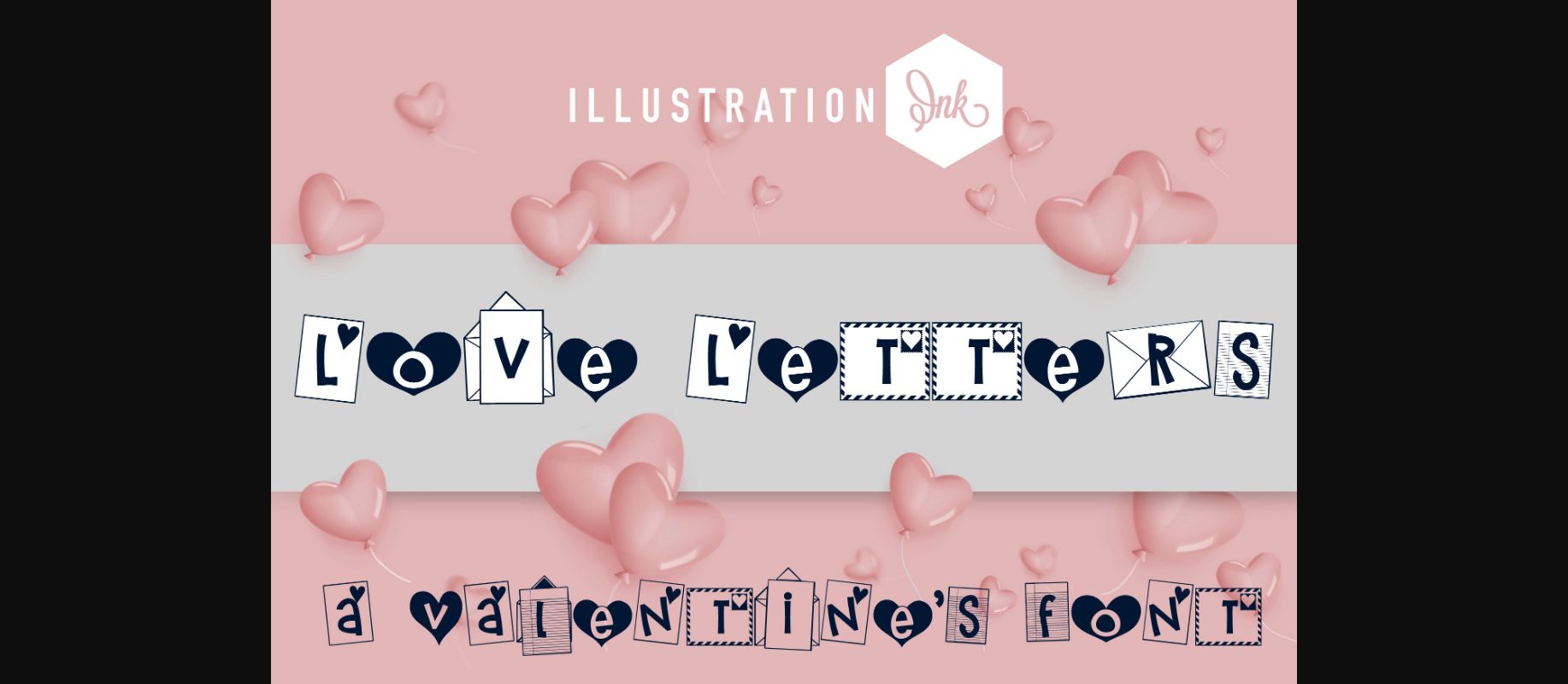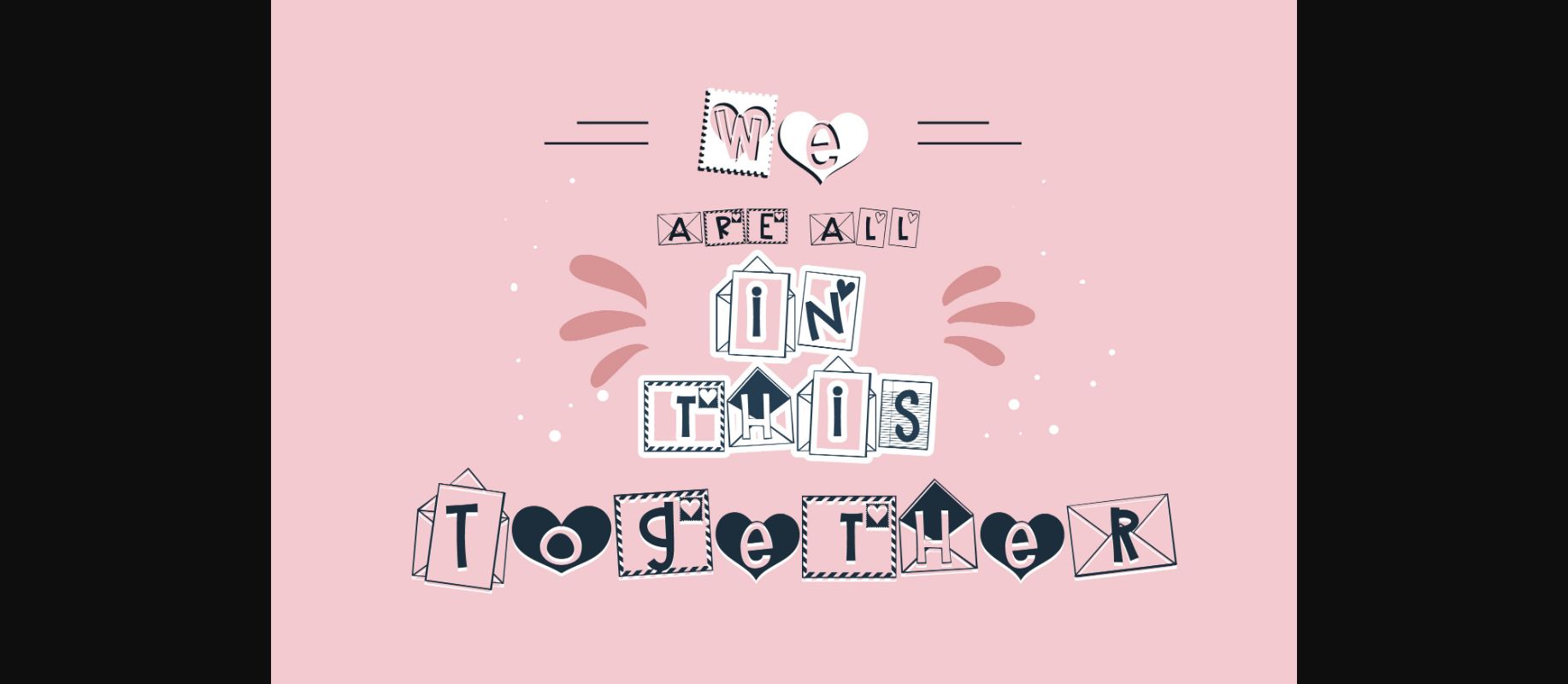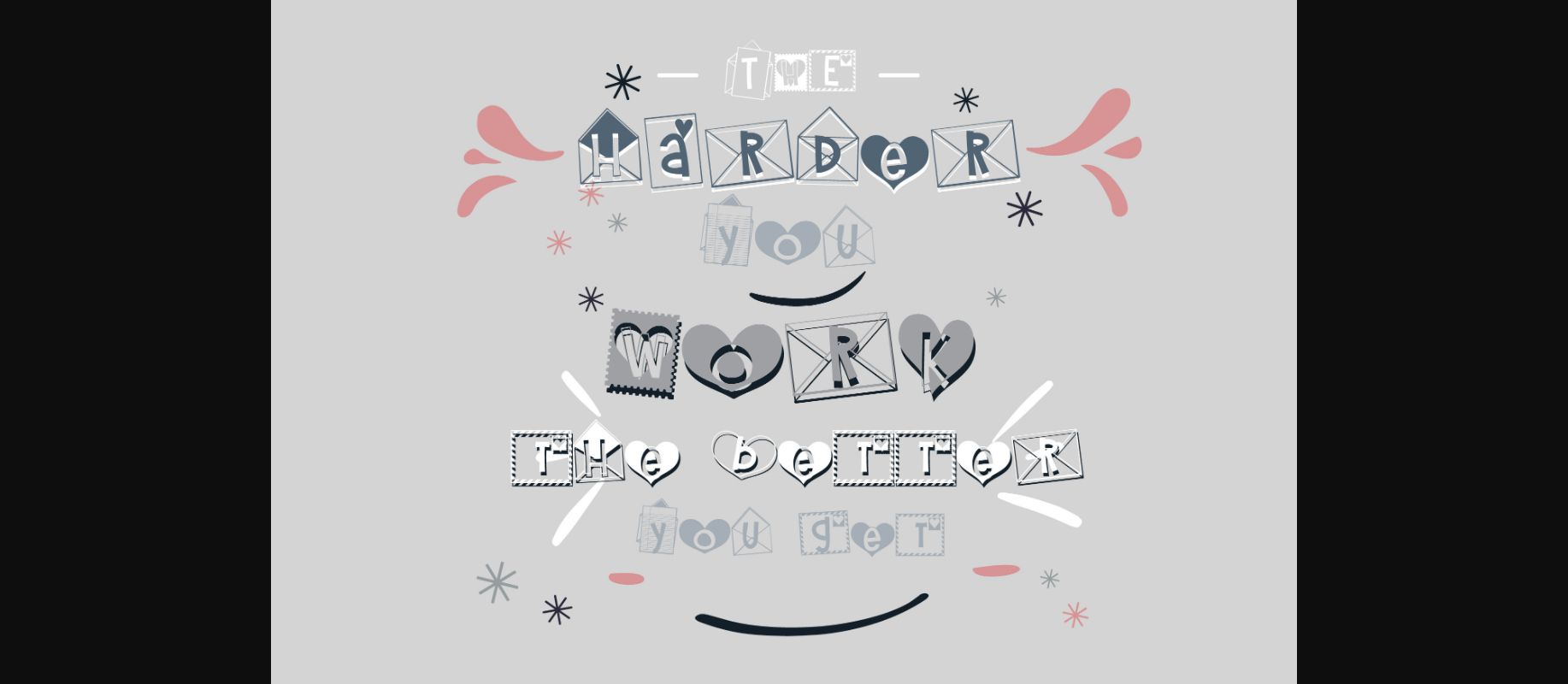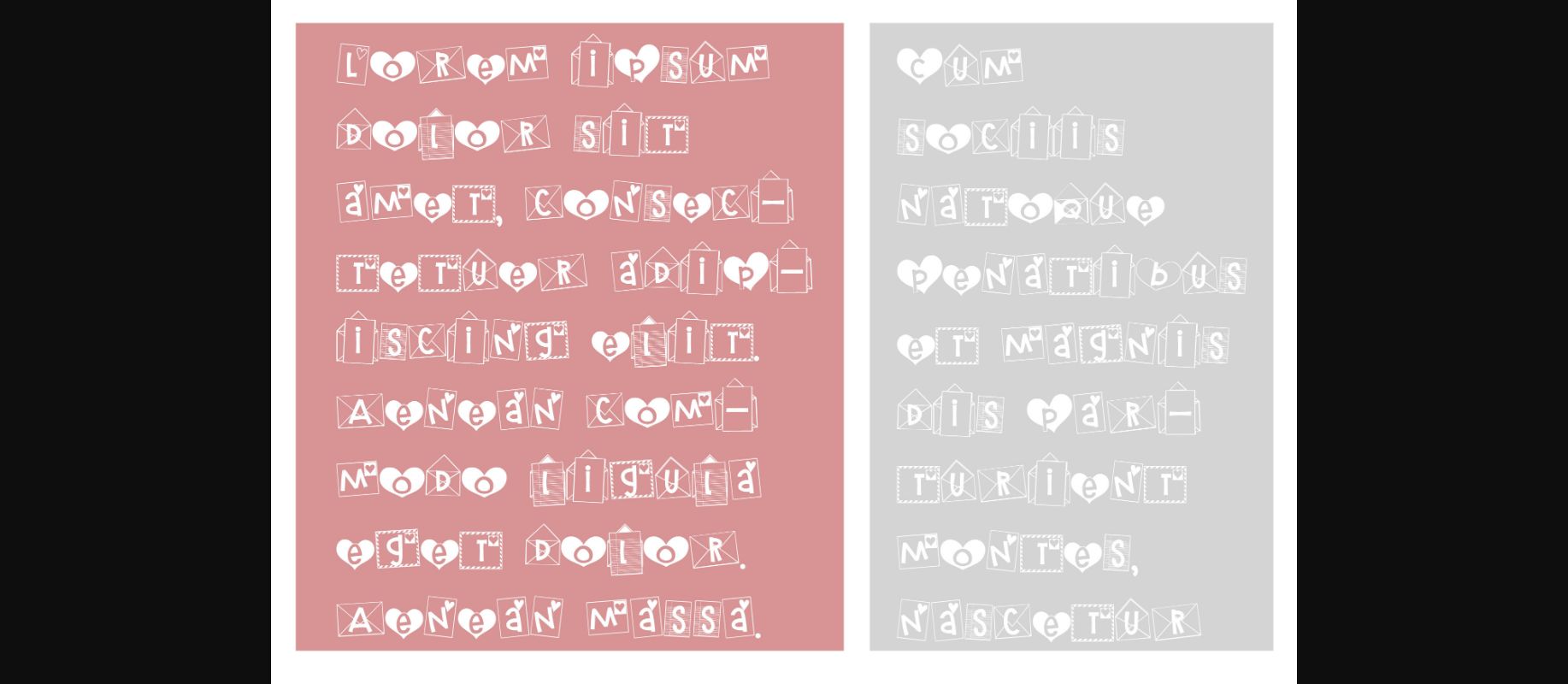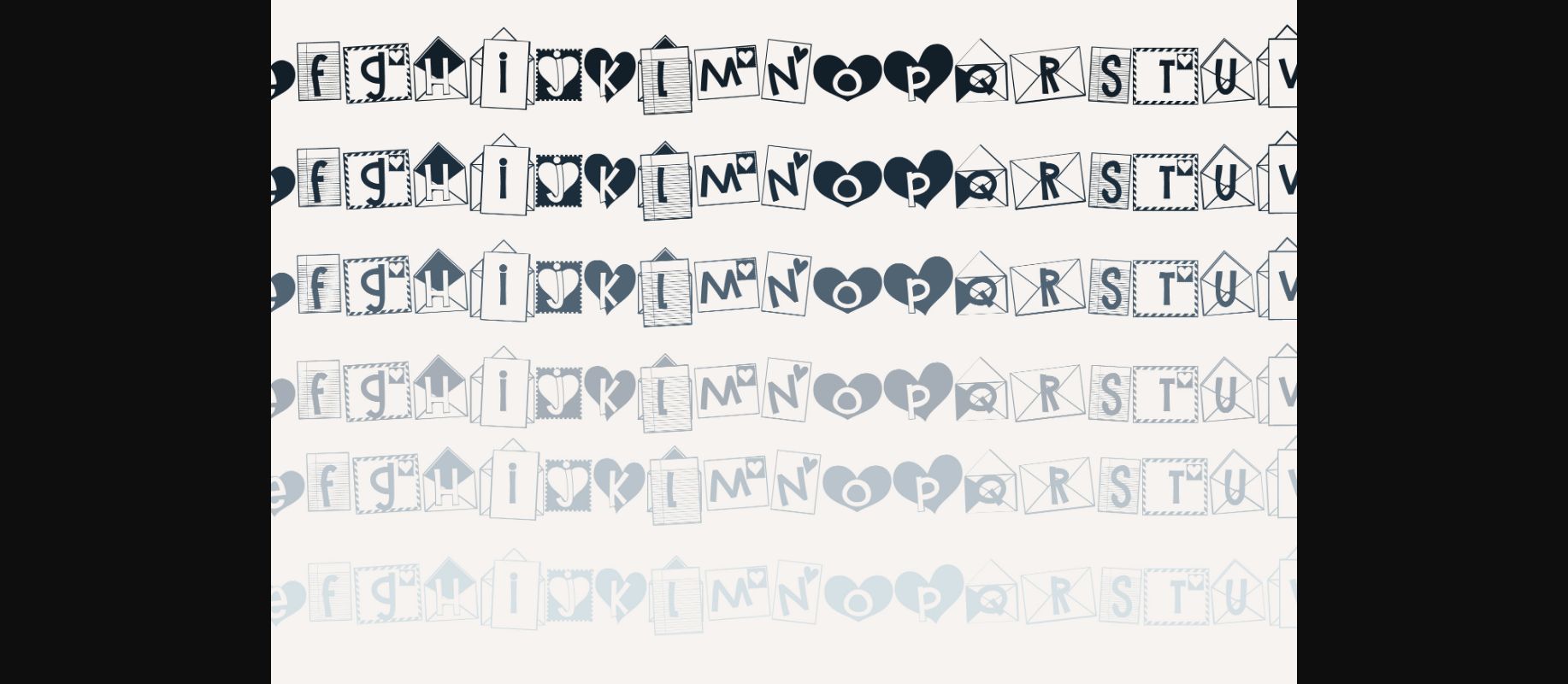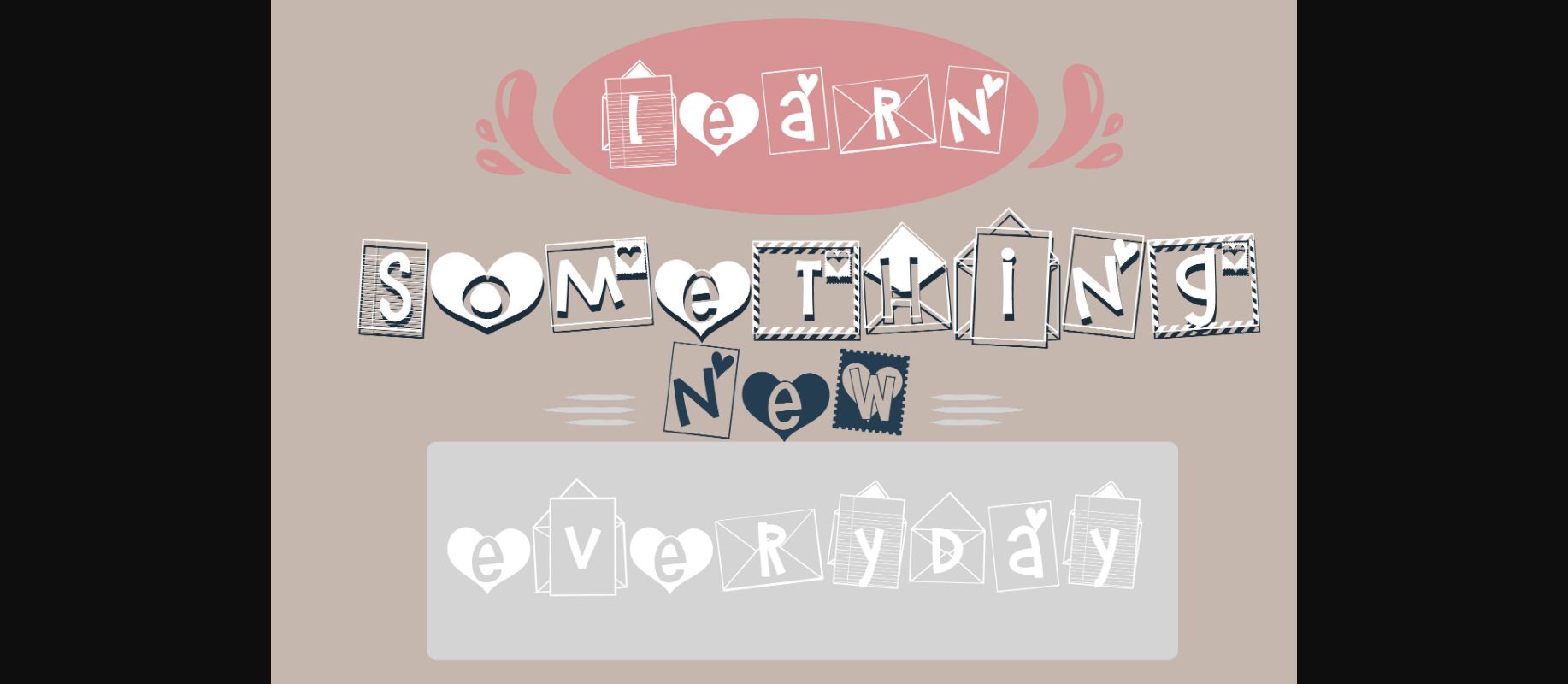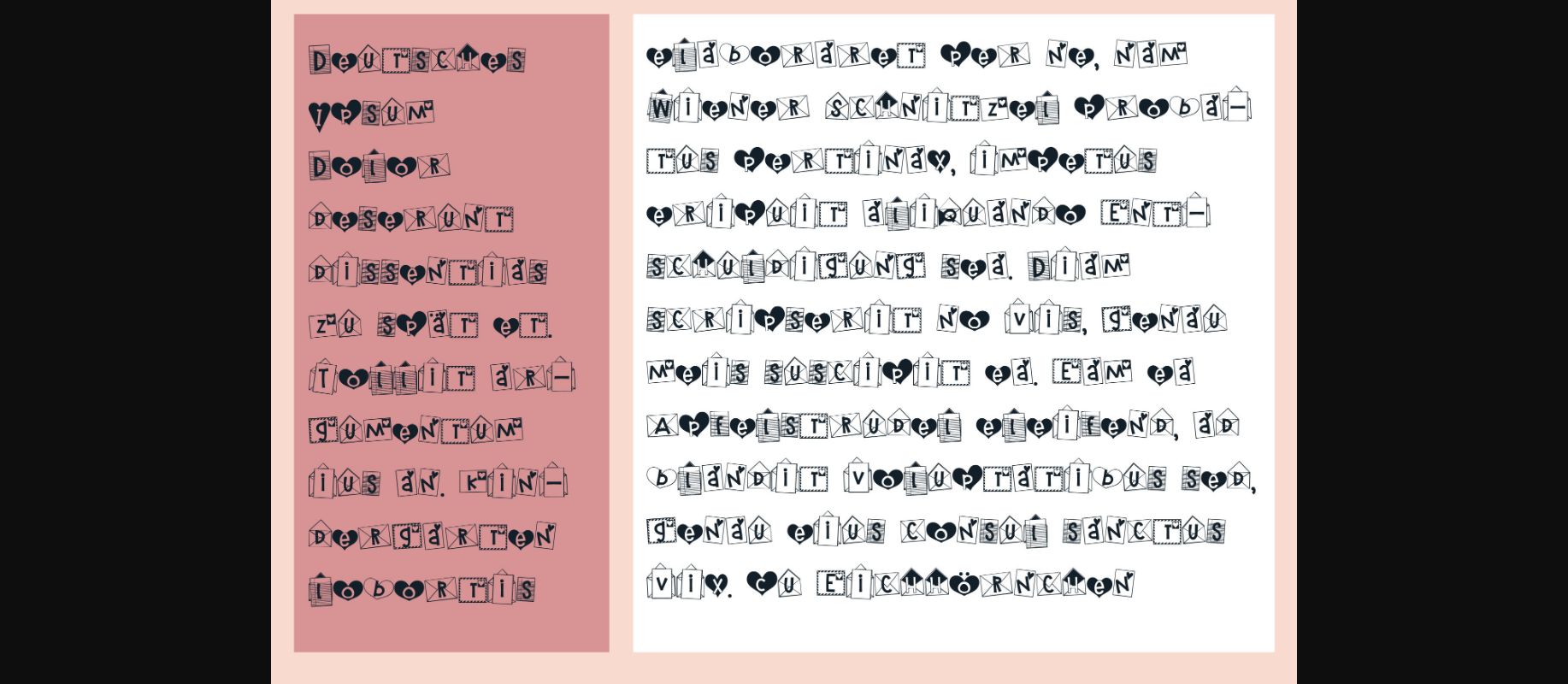
HomeDecorative FontsLove Letters Font Decorative Fonts Love Letters Font FacebookXPinterestWhatsApp 1 of 9 ... Love Letters Font Poster 2... Love Letters Font Poster 3... Love Letters Font Poster 4... Love Letters Font Poster 5... Love Letters Font Poster 6... Love Letters Font Poster 7... Love Letters Font Poster 8... Love Letters Font Poster 9... About Love Letters Font This hand-crafted decorative font features hand-written letters on letters, envelopes, hearts, and more. Its cute and adorable style will help you create unique, romantic designs. DOWNLOAD NOW People also explored Kolectife Font Signature Font Miraculous Font Yippie Yeah – Stylish & Playful Slab Font Bristol Charleigh Font Lemon Smoothie Font MFC Whitworth Monogram Julius Smith Font Triangle Font 309 0 TagsLove Letters Font Previous articleRainbow FontNext articleMahjong Font LEAVE A REPLY Cancel reply Comment: Please enter your comment! Name:* Please enter your name here Email:* You have entered an incorrect email address! Please enter your email address here Website: Save my name, email, and website in this browser for the next time I comment. Personal Use Free Evelyne Personal Use Free Read more about this font Numberpile Personal Use Free Read more about this font Aragon Personal Use Free Read more about this font Starborn Font Personal Use Free Read more about this font BLOG How to Cut Any Font on Cricut: Convert a Font to SVG (Free) Turn any font into a clean SVG so it cuts crisp on Cricut - a quick 3-step workflow using a free font-to-SVG tool. How to Install and Use Fonts on Windows, macOS, and Web Projects Top 7 Google Fonts Alternatives for Faster and Privacy-Friendly Web Design (2025) Top 10 Handwritten Fonts That Elevate Your Designs